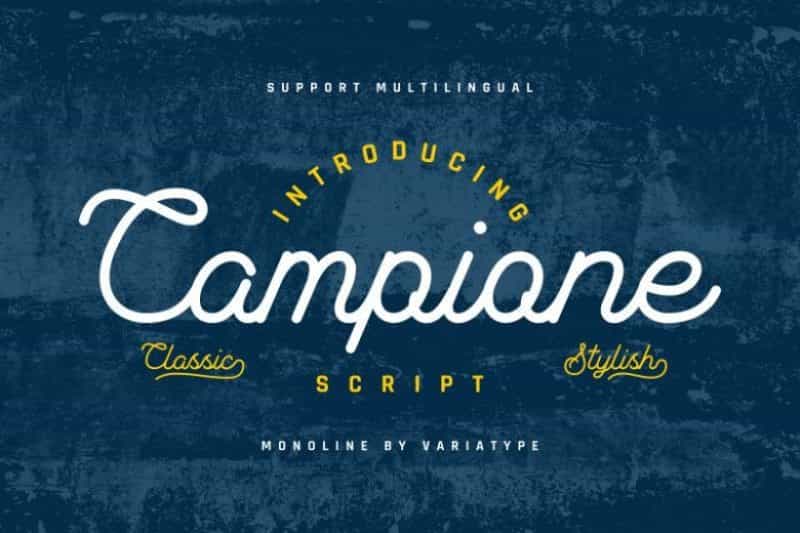
Discover Campione Script Font, part of the Script Monoline Various collection—a versatile and unique font perfect for adding a personal touch to your projects. Download it for free and enjoy crafting designs with style, from invitations to social media posts. This font is available exclusively for personal use, giving you the freedom to create without limits. Unlock your creativity with Campione Script Font today!
Experience the new way of crafting typography, with Campion Script a monoline typeface by Variatype. Regarding the style and the kind of font this is a simple script font which can be regarded as classic and stylish. Attention! Please read this carefully. This font you can use for non-commercial purpose only! Also, your product should not incorporate this font for any commercial or business use.